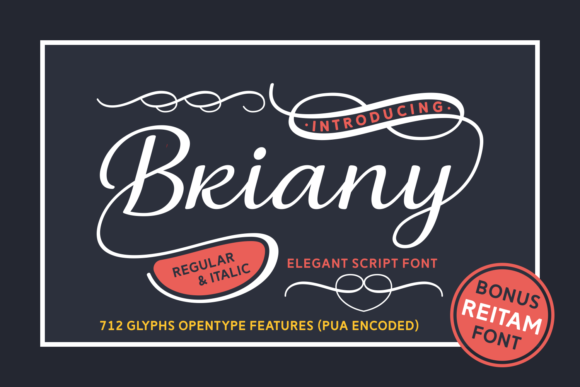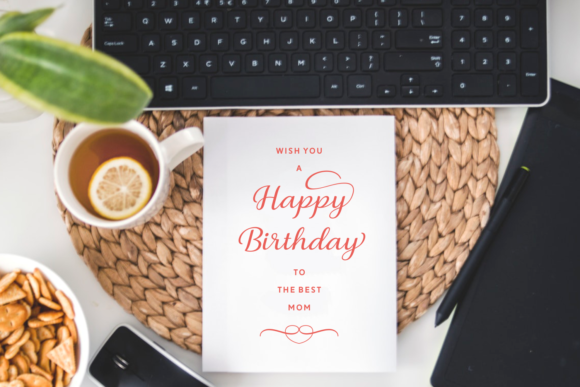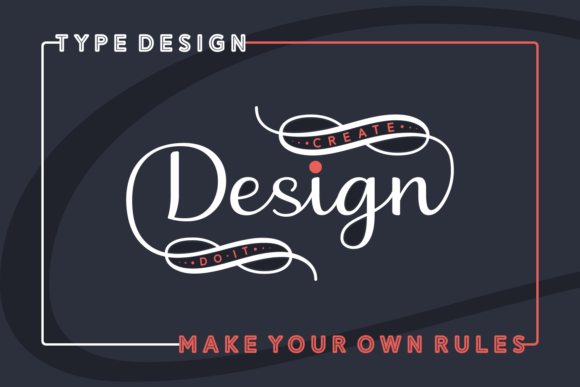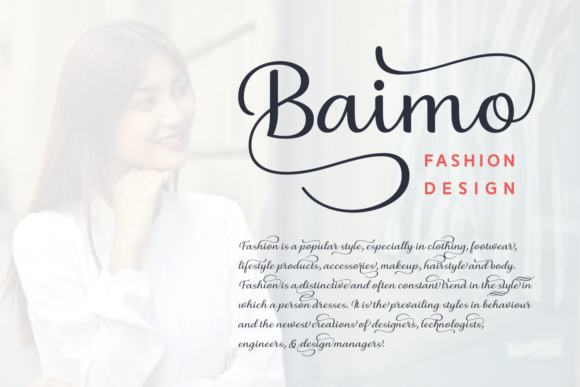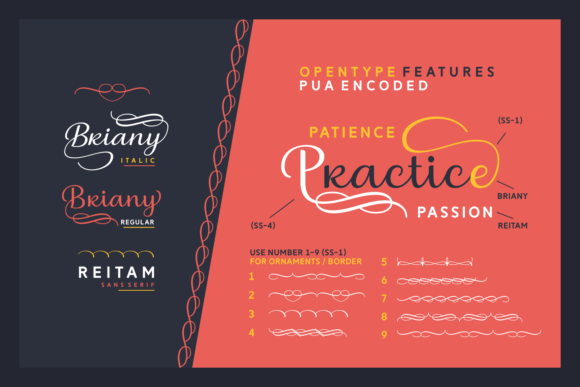
Briany Font
About Briany Font
Briany is a gorgeous, swashy script font that is perfect for use in headlines and titles. This font is a great way to add a textured and vintage appeal to your designs that retains a stylish and sleek vibe.